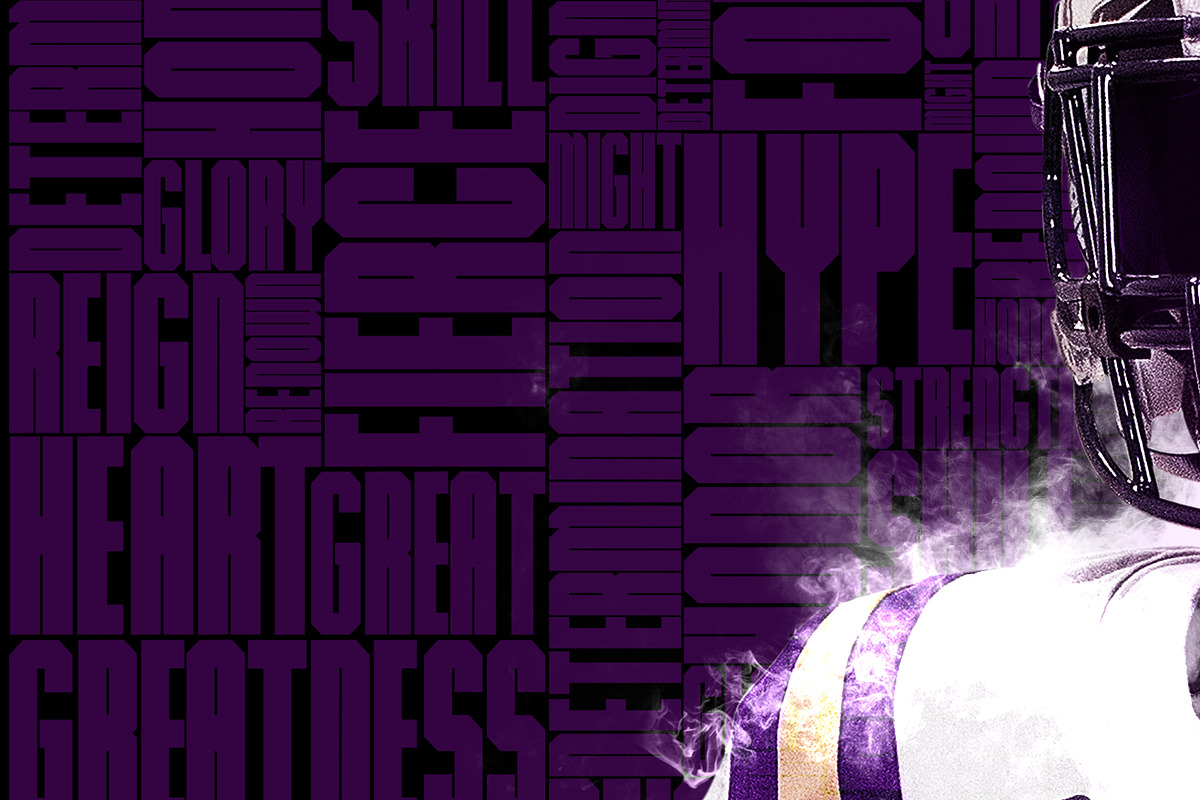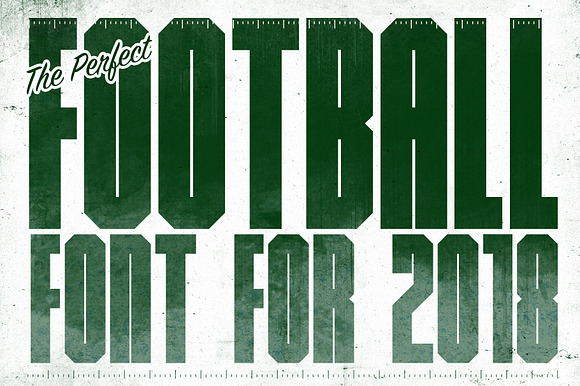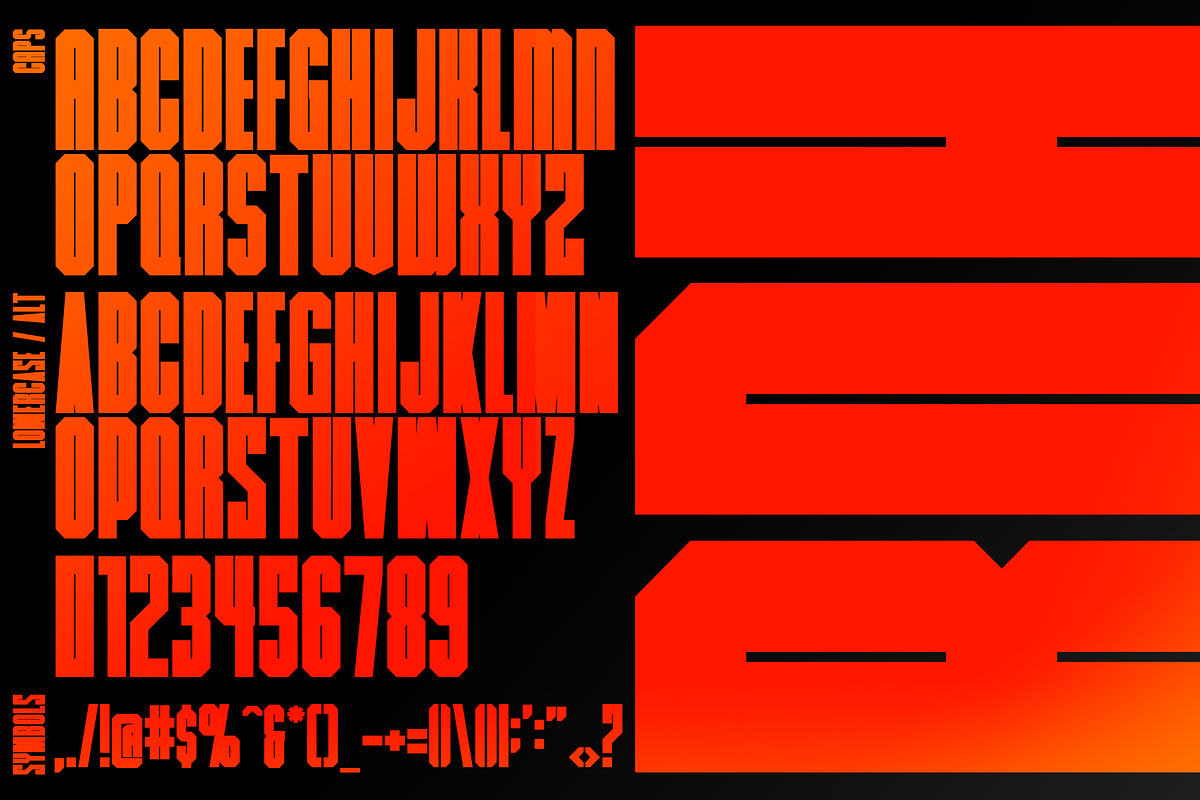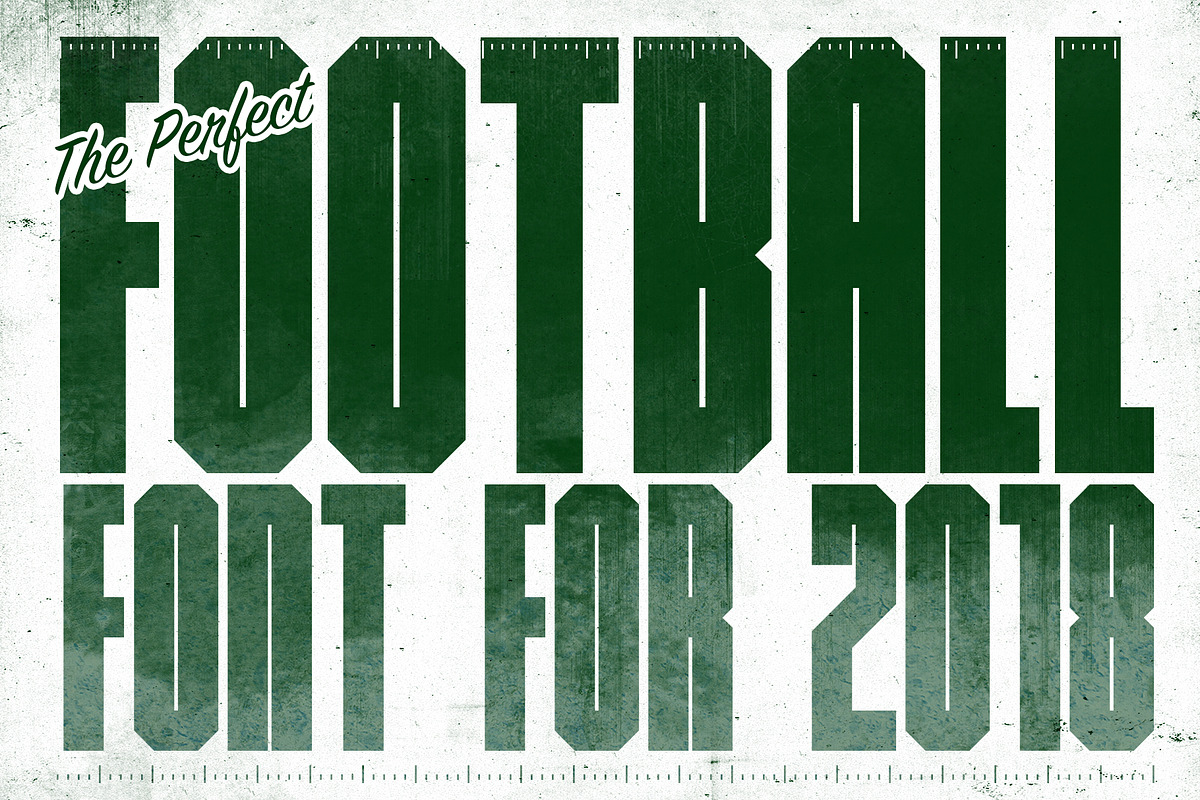
Big Daddy Hacks-Bold Condensed Font
Have you ever run into a problem where your font just isn't thick enough, condensed enough. BIG DADDY HACKS is that solution. Full character set on a super condensed super bold font.
It will provide anything from your football poster to your Christmas Card a punch-to-the-face boldness